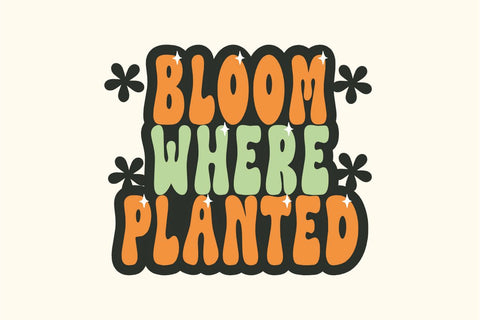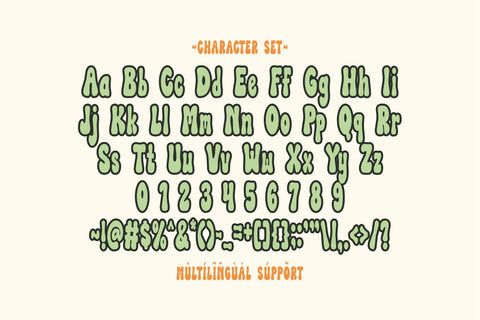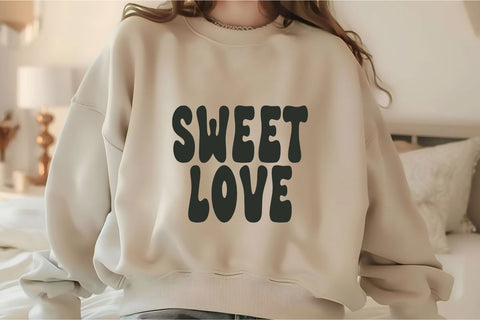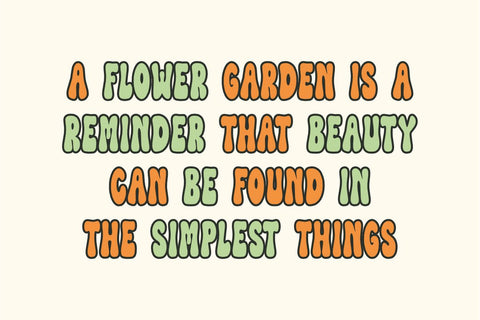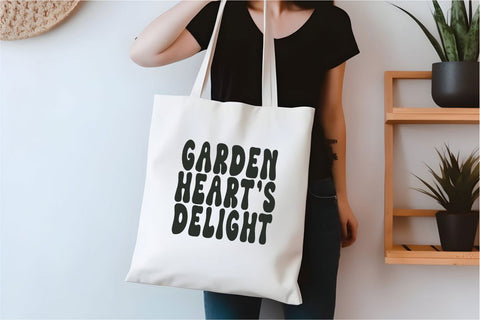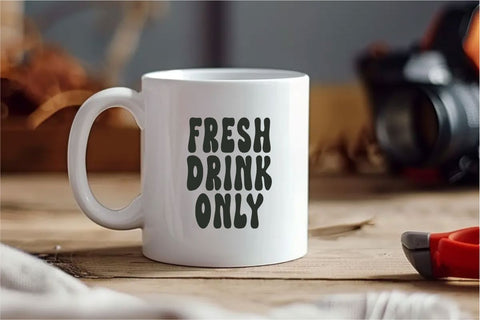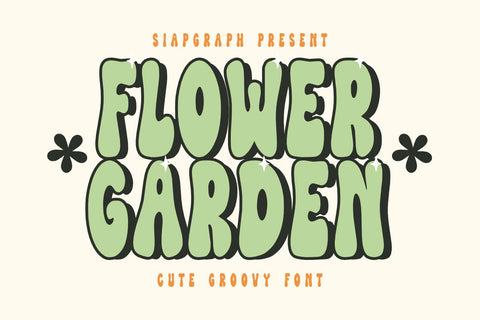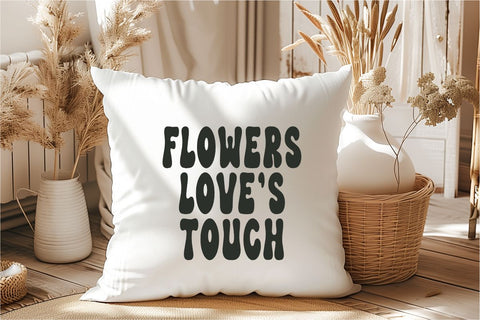
Flower Garden - Retro Groovy Font
Flower Garden is a cute and groovy display font with bold, bubbly letterforms and a fun retro aesthetic. Its thick, rounded shapes and playful curves bring a cheerful, flower-power vibe to any design. Inspired by vintage 70s style and nature themes, this font is perfect for summer designs, kids projects, invitations, posters, branding, t-shirt designs, stickers, and creative digital projects. With its vibrant personality and outlined shadow effect, Flower Garden is ideal for eye-catching titles and groovy typographic layouts.